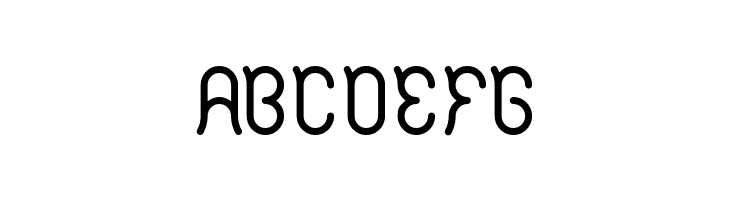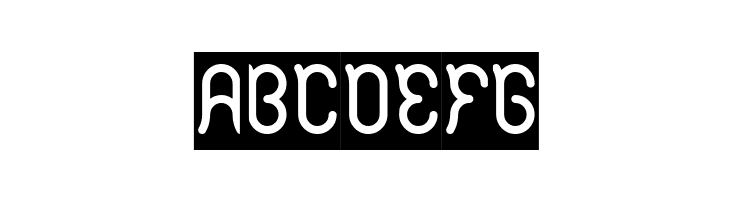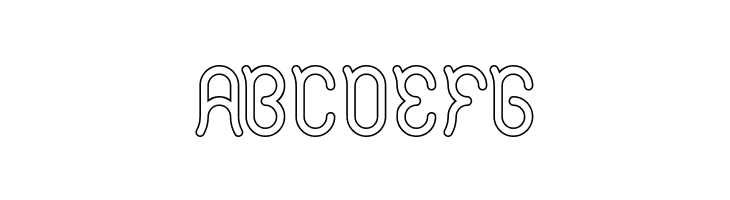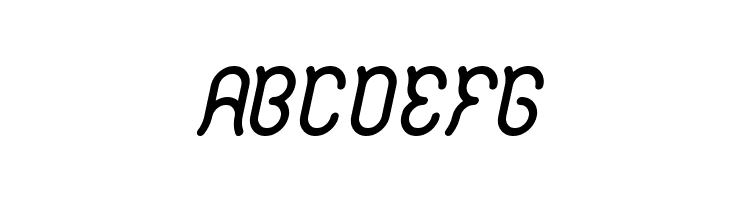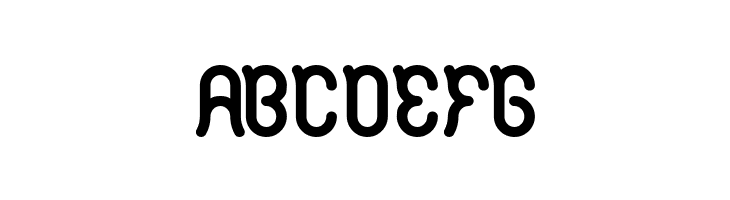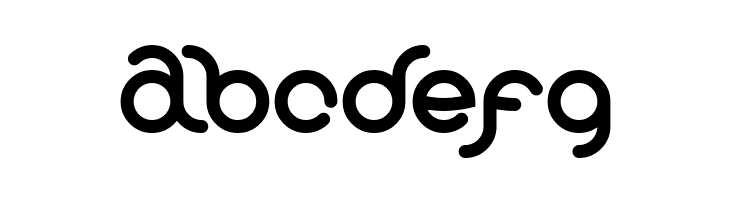
polysoup Font
Font by weknow - Wino S Kadir
A playful, modern font with rounded, interconnected characters.
polysoup Font
A bold, modern font with rounded, interconnected strokes and smooth curves.
Polysoup Bold Font
A bold, playful font with rounded, modern characters.
Polysoup-Inverse Font
A bold, playful font with rounded, flowing characters and a whimsical style.
Polysoup-Light Font
A playful, modern font with rounded, flowing lines and consistent stroke width.
Polysoup-Hollow-Inverse Font
A modern, hollow, inverse font with playful curves and geometric shapes.
Polysoup Italic Font
A playful, bold, and italic handwritten font with a friendly and dynamic style.
Polysoup Bold Italic Font
A bold, italic, and playful font with rounded, flowing characters.
Polysoup-Hollow Font
A hollow, artistic font with a playful and modern design.